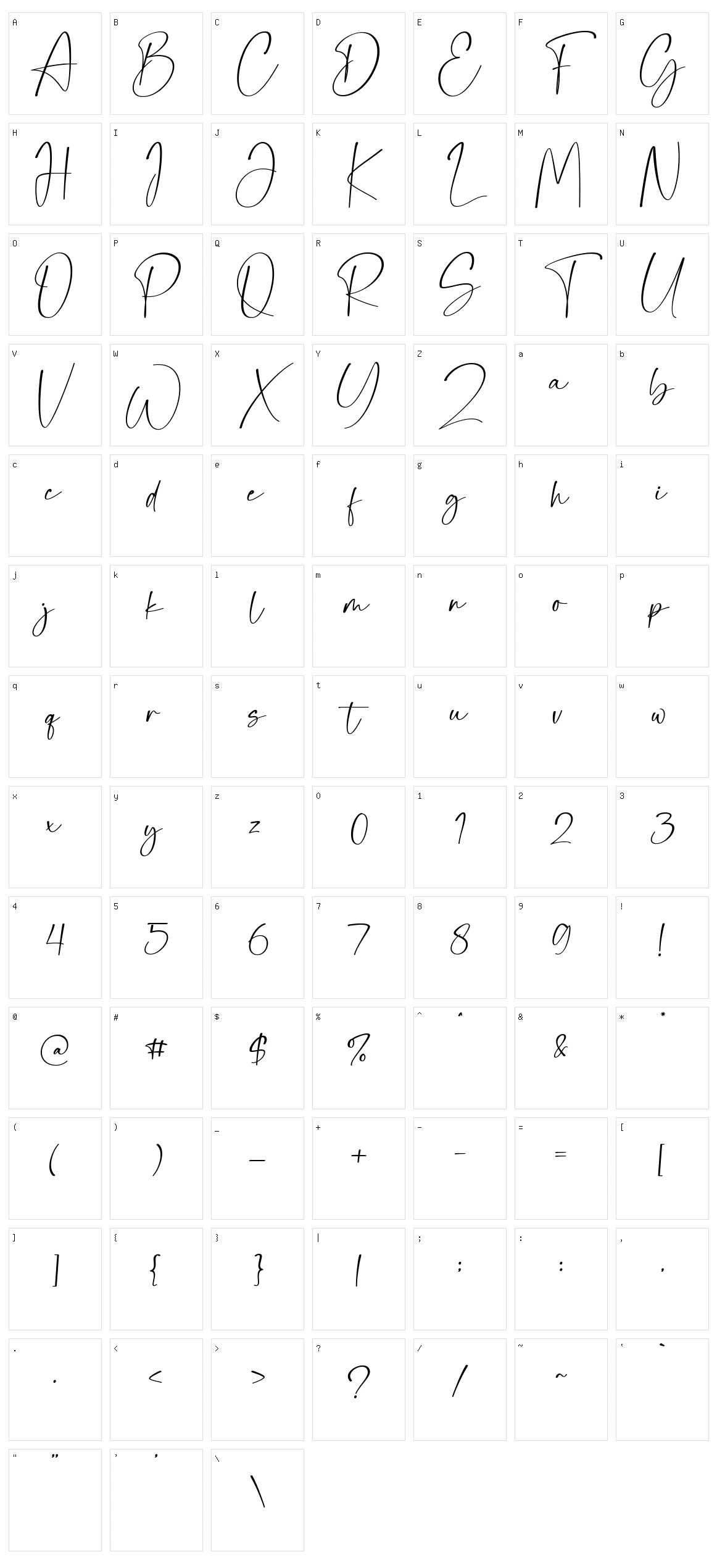
The free font Panelines is carefully designed by Dav studio, showcasing a thoughtful balance of creativity and usability and falls under the Script font style. When you download the ZIP file, it contains only 118.19 KB of font files, making it lightweight and quick to download. Please review the license details below to understand permitted usage and distribution rights. If license information is not available, we recommend using this font for personal projects only or contacting the author directly for commercial usage permissions.